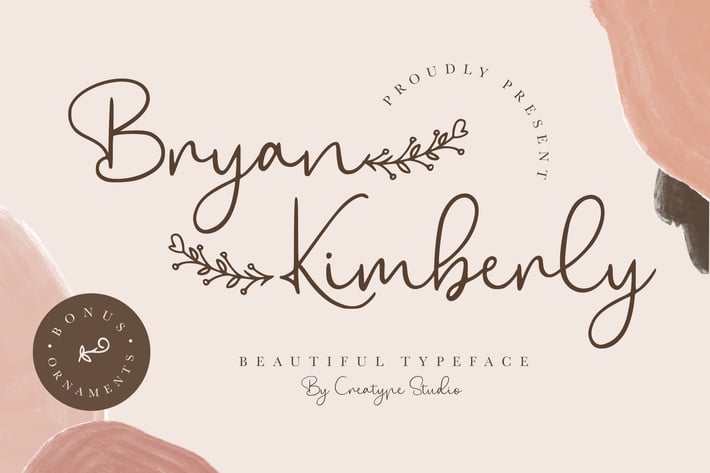
Bryan Kimberly Beautiful Typeface
Bryan Kimberly a beautiful signature font with natural line movement make classy and elegant.
Bryan Kimberly is perfect for branding projects, logo, wedding designs, social media posts, advertisements, product packaging, product designs, label, photography, watermark, invitation, stationery and any projects that need handwriting taste.
Ton of glyphs
Ligature, Alternate & Swashes
* Fonts include multilingual support for; Afrikaans, Albanian, Catalan, Czech, Danish, Dutch, English, Estonian, Finnish, French, German, Hungarian, Italian, Latvian, Lithuanian, Norwegian, Polish, Portugese, Slovak, Slovenian, Spanisch, Swedish, Turkish.